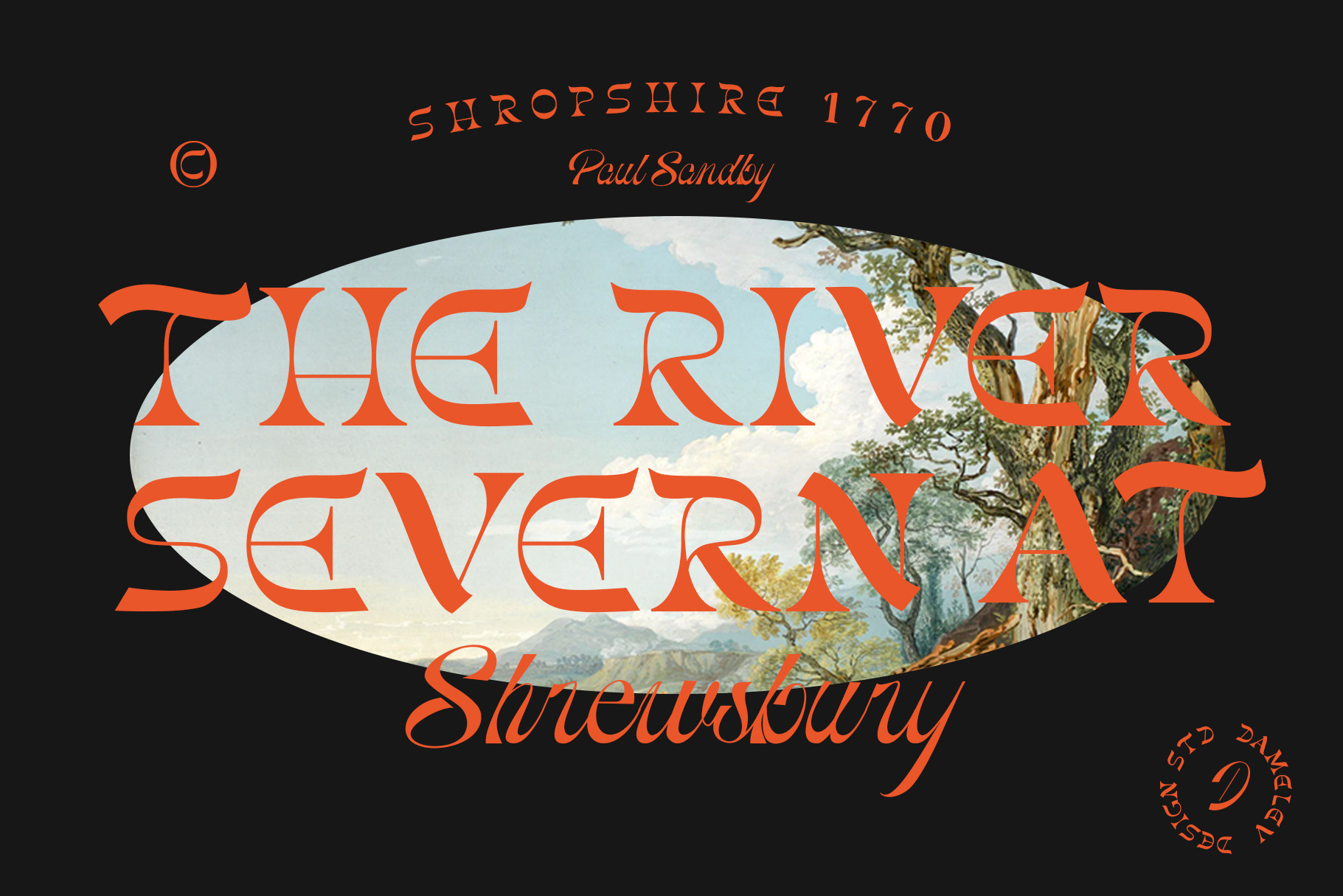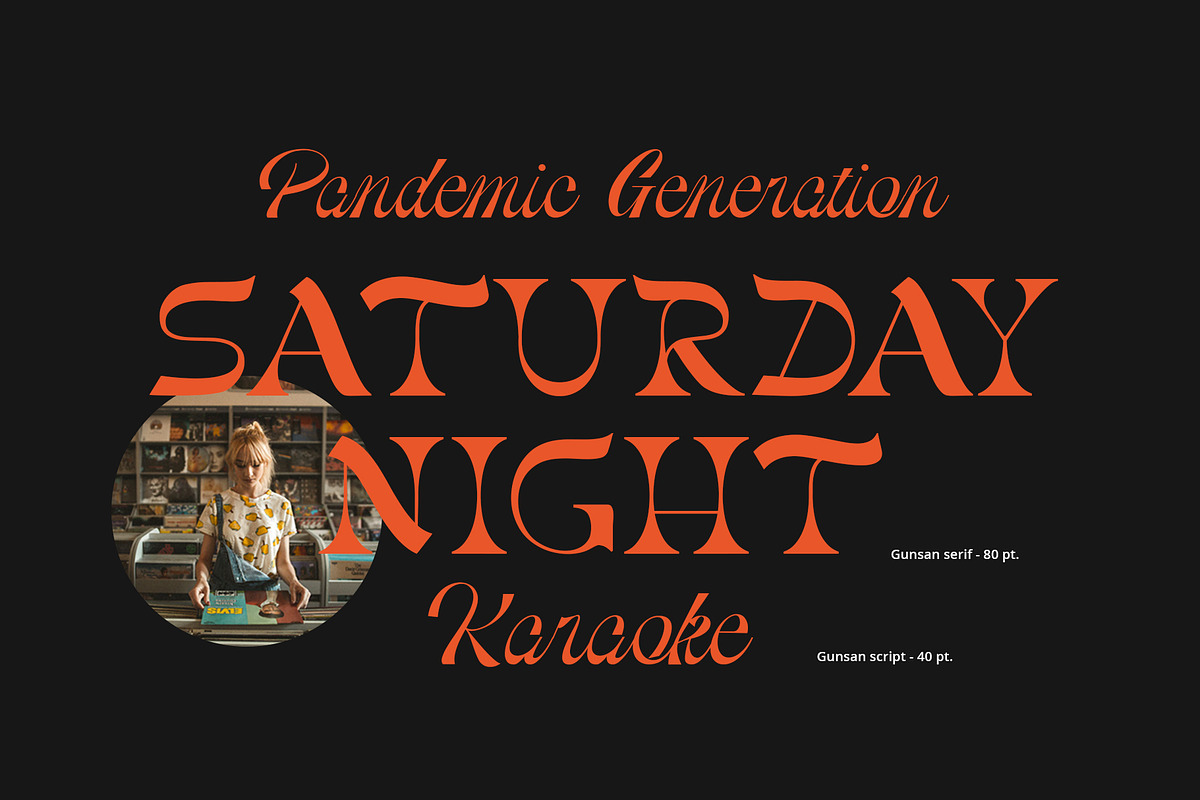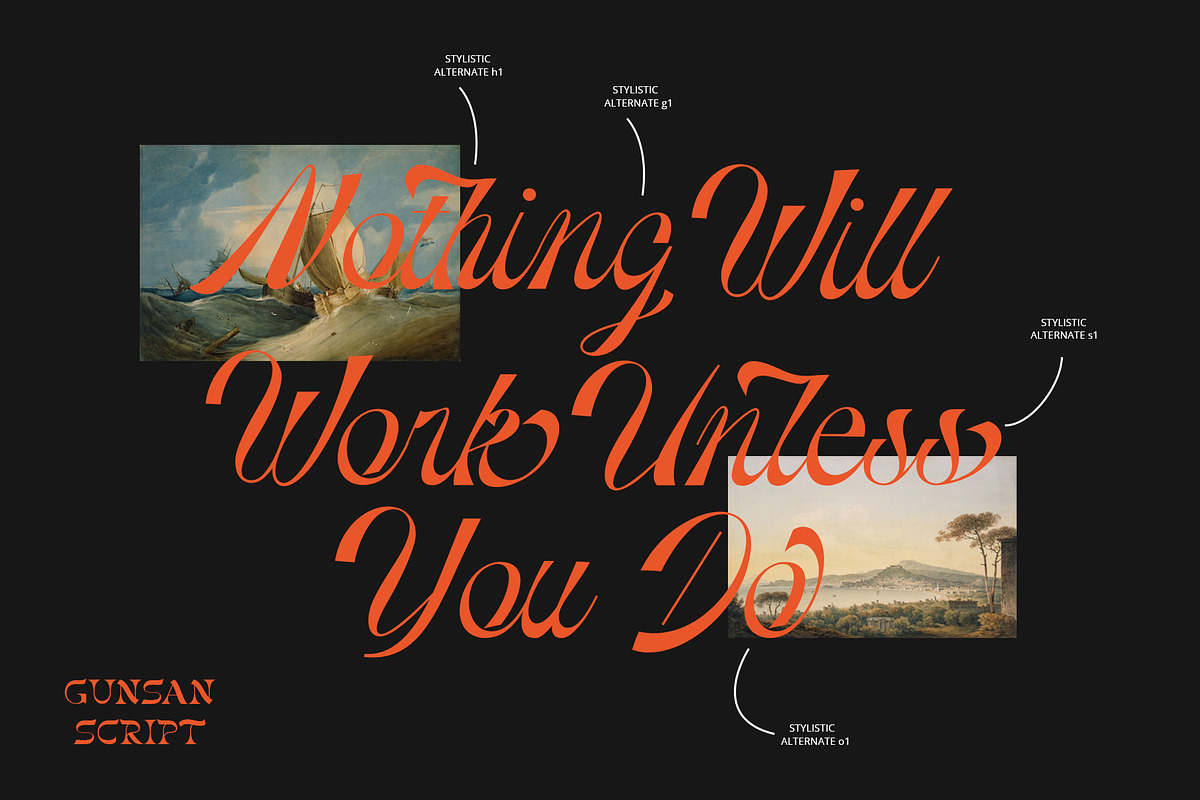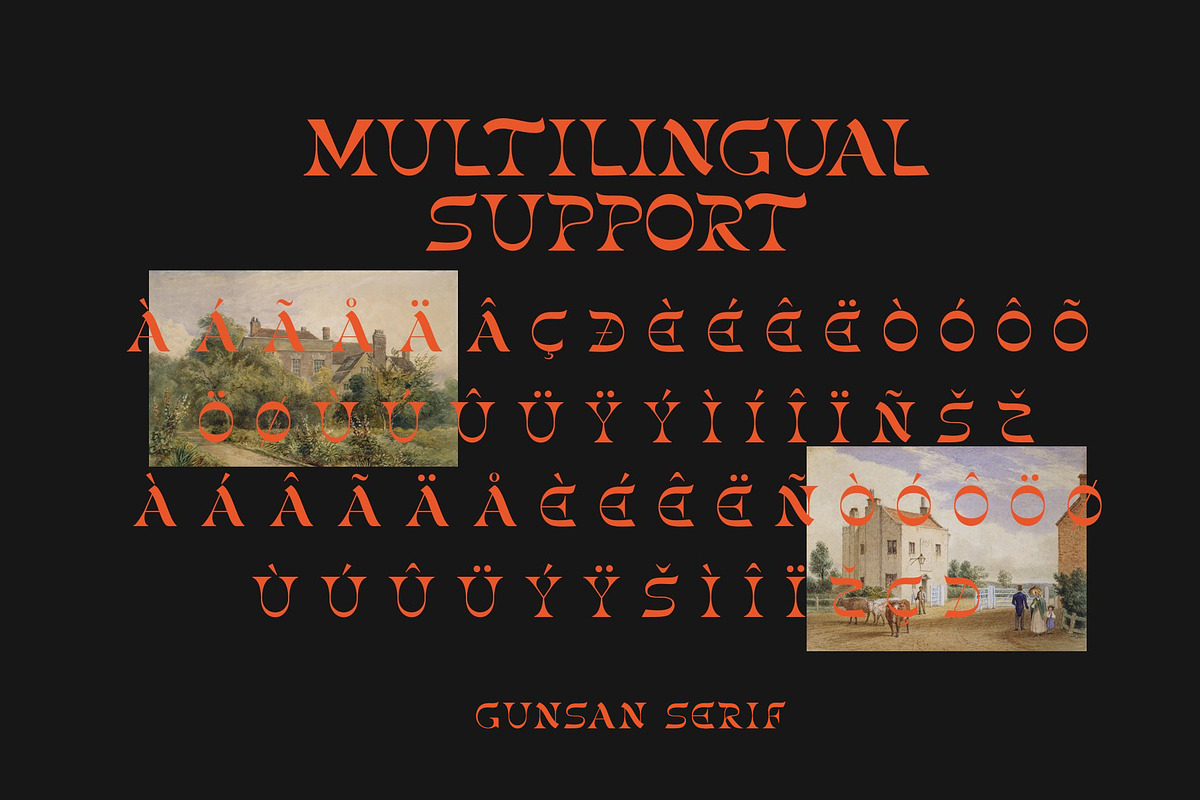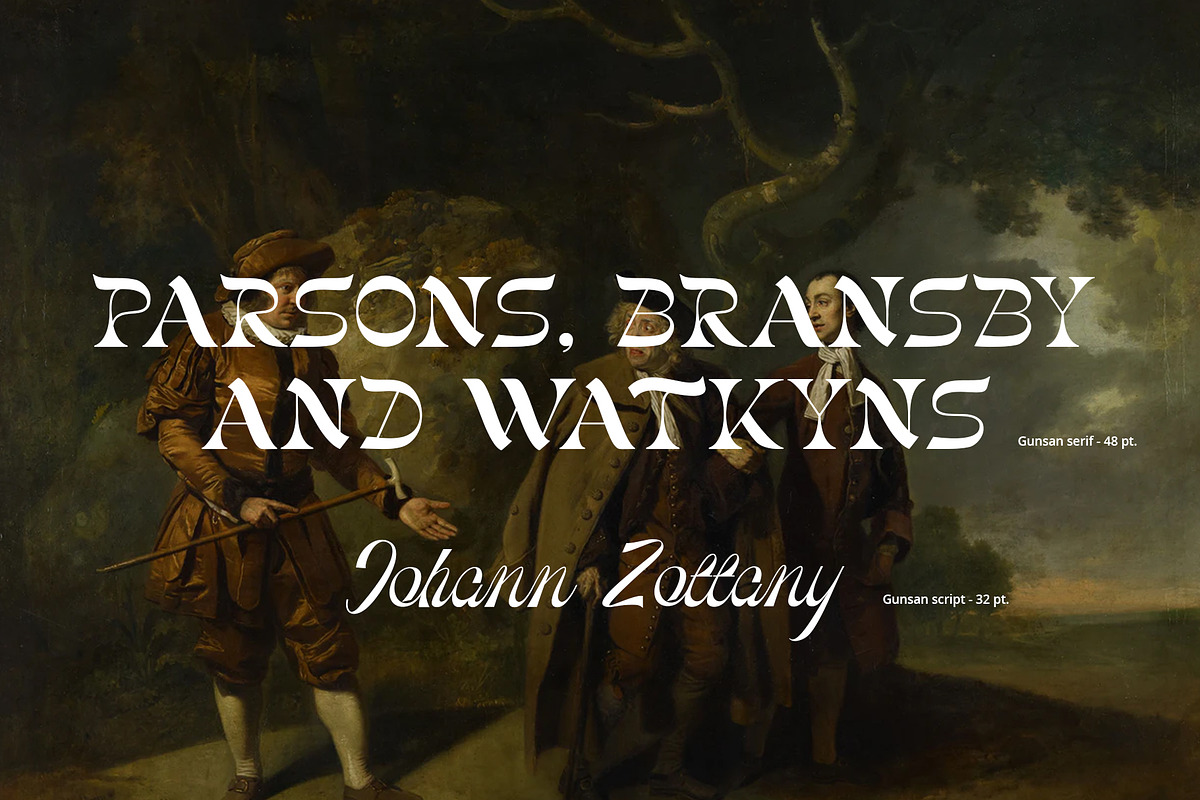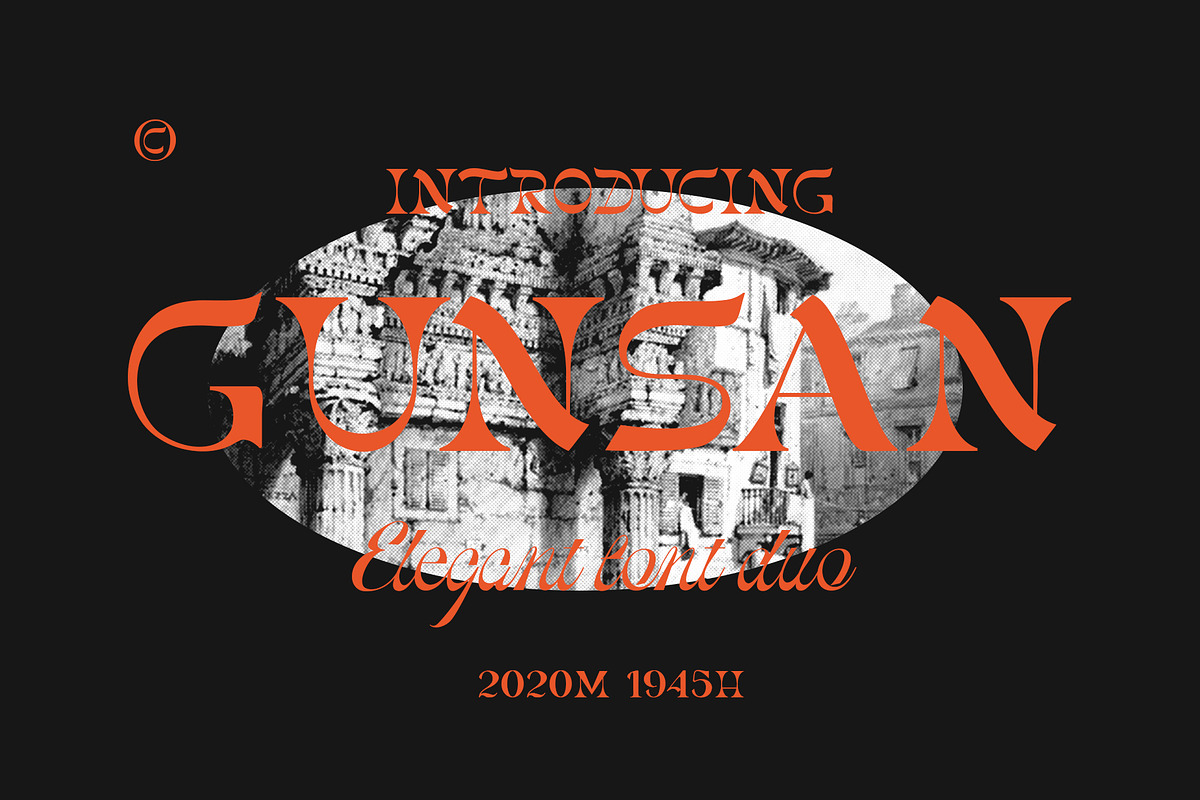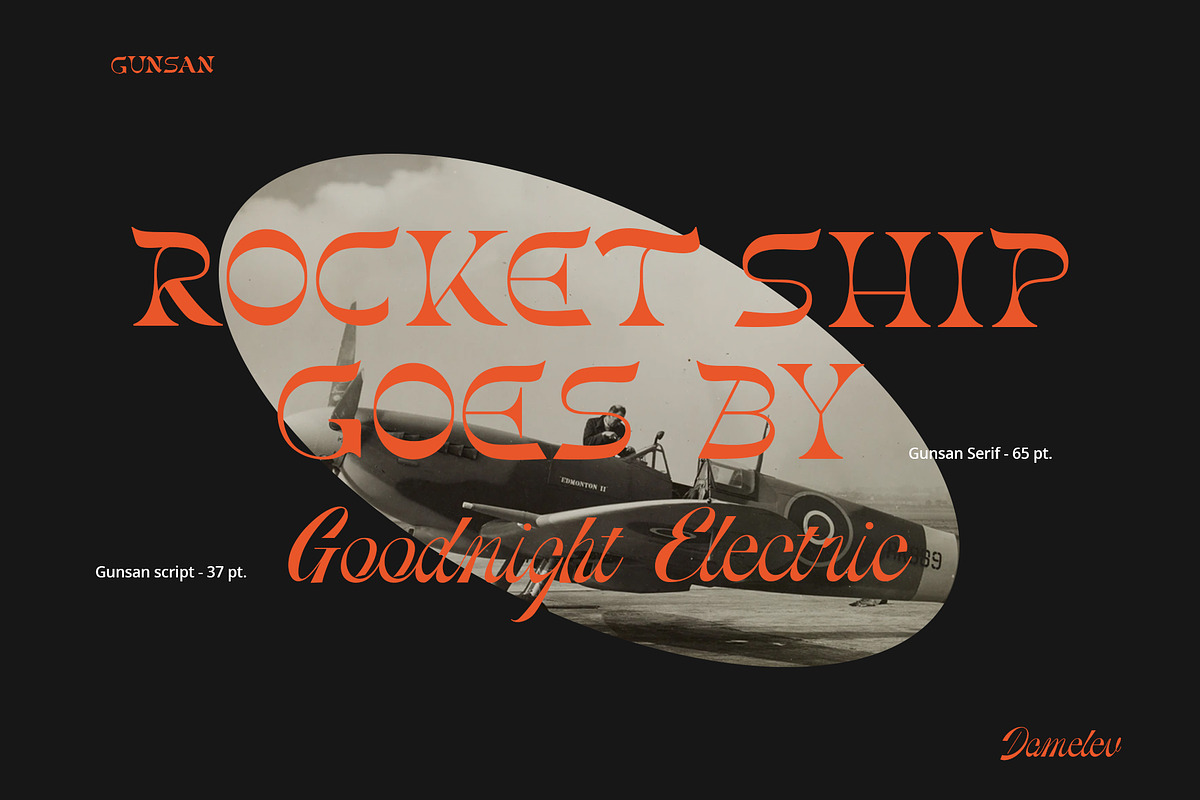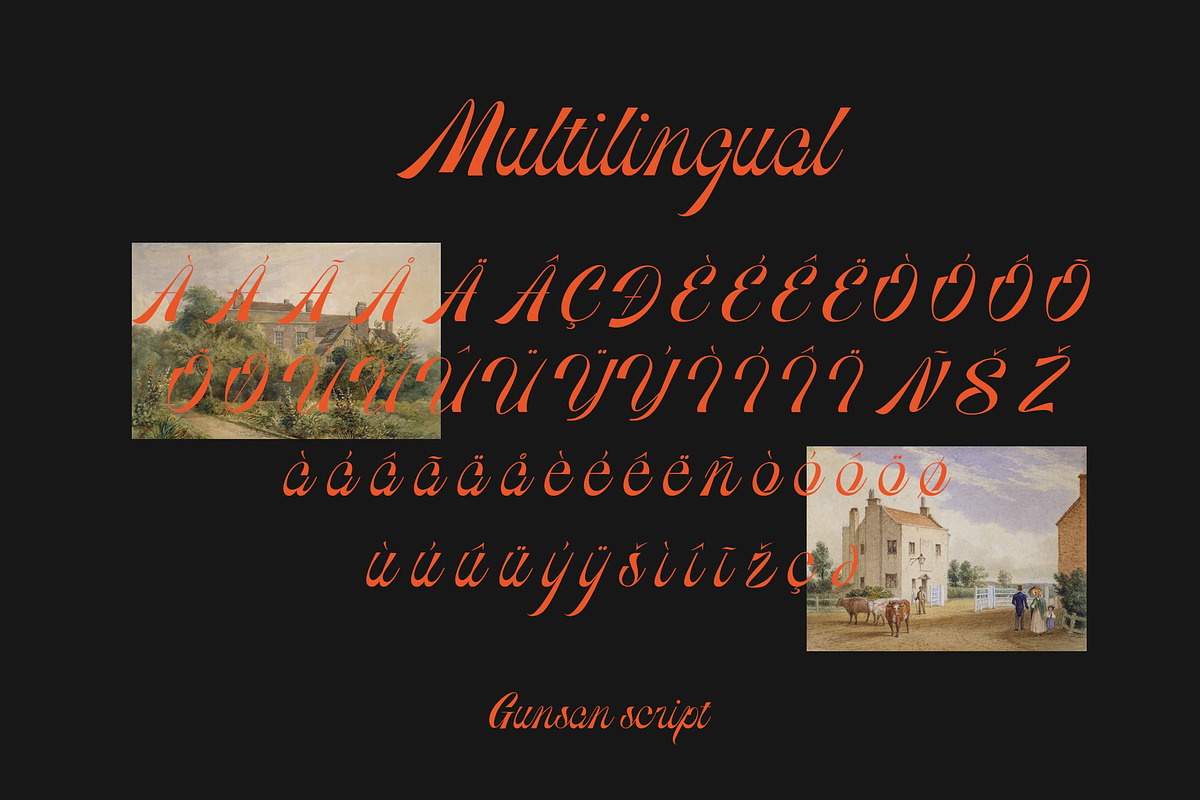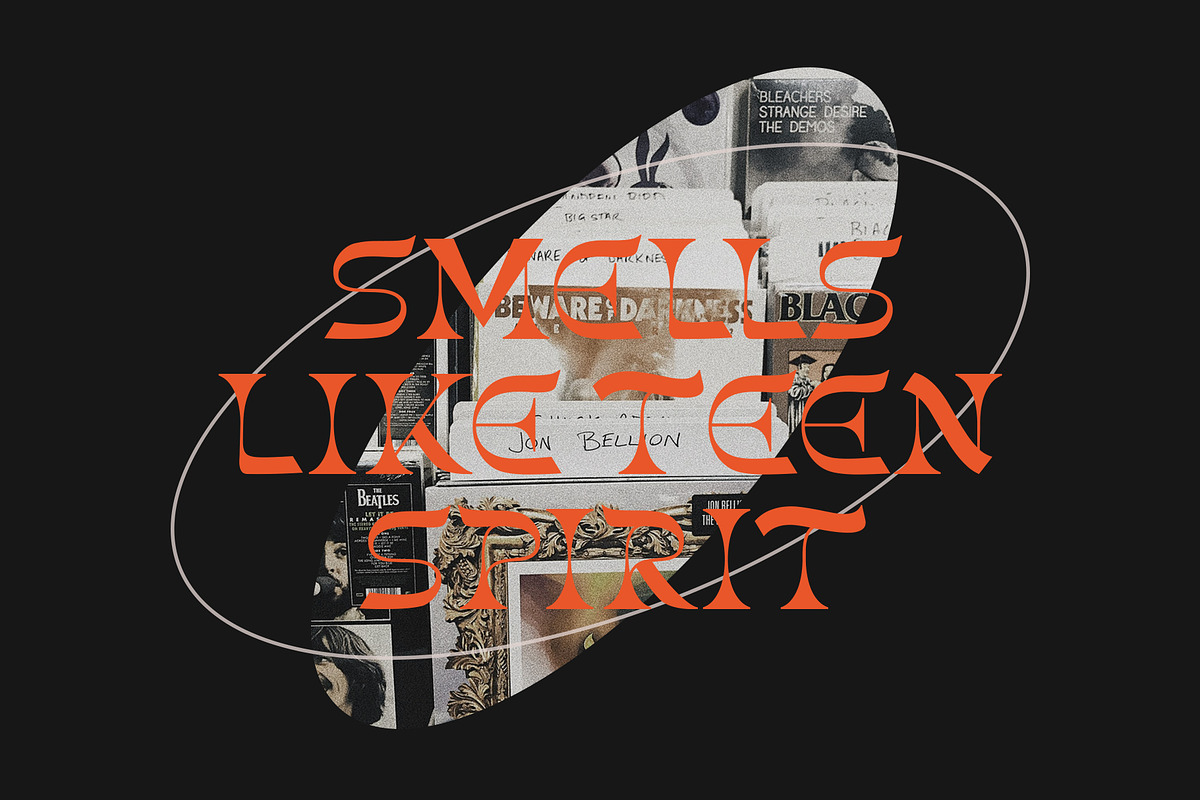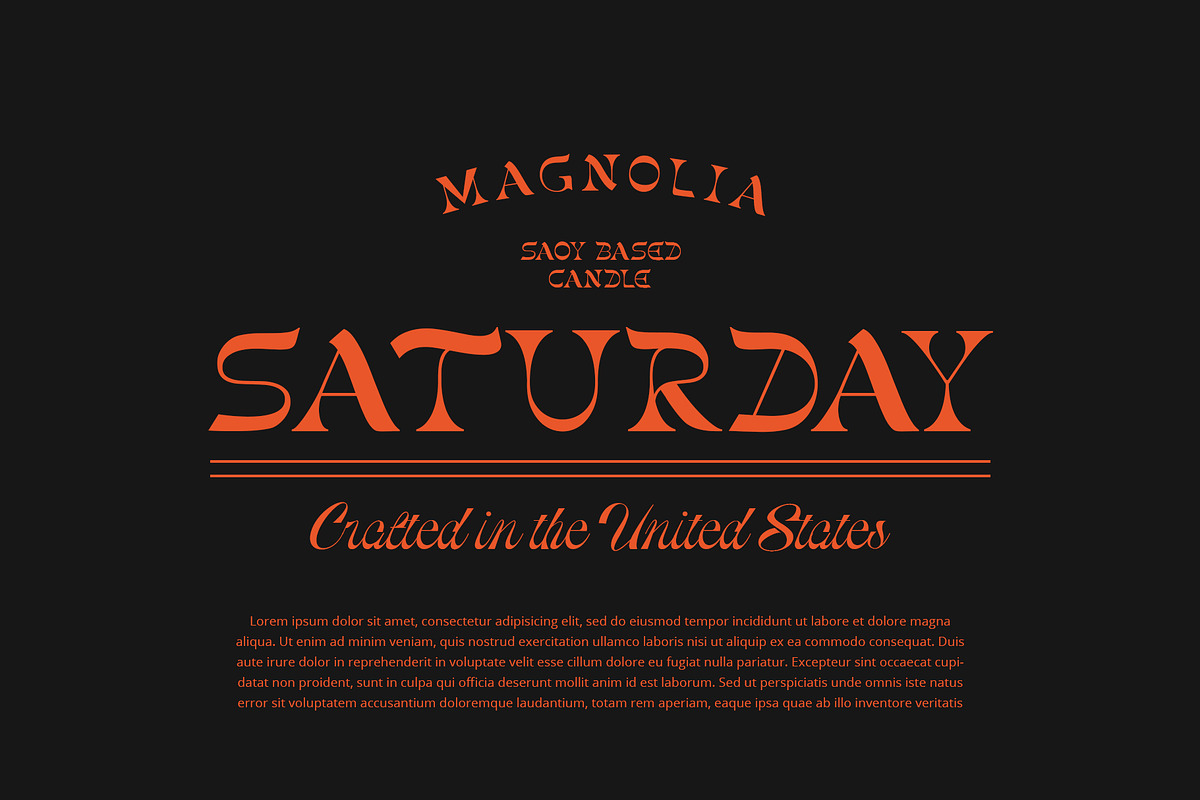
Gunsan Font Duo
Gunsan font Duo is an elegant font that has advantages in every letter, Gunsan Font Duo is designed with a mix of vintage and modern that give any headline an elegant appearance, Gunsan fits snugly in large sizes so they look perfect in your designs, Gunsan Font Duo has pretty much alternatives glyphs choice in the pack and support multilingual.
It works perfectly for creative project such as logo, T-shirt / apparel, badge, invitation, packaging, headline, poster, magazine, greeting card, and wedding invitation. You can access the open type features and multilingual on mostly Adobe programs, such as Adobe Indesign, Adobe Illustrator, Adobe photoshop etc.